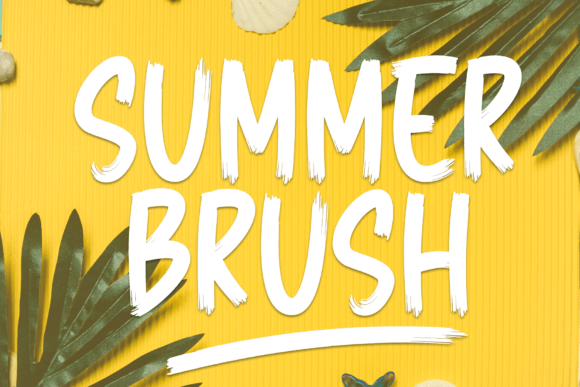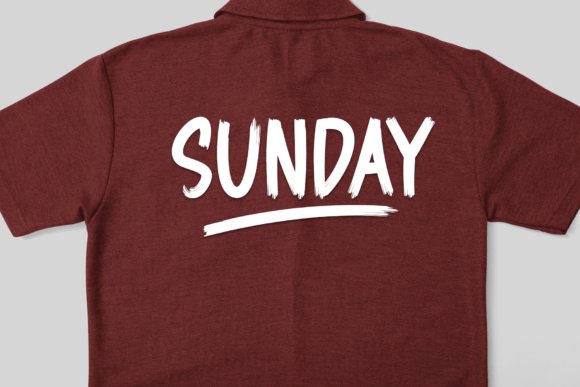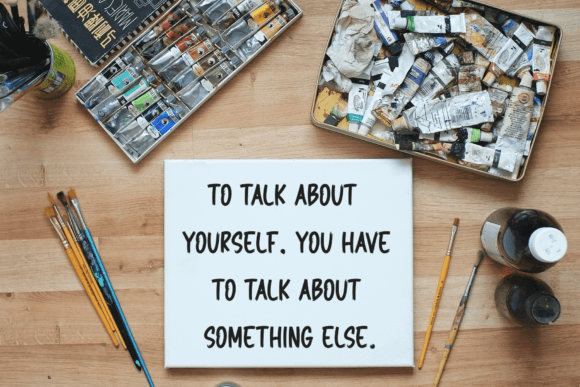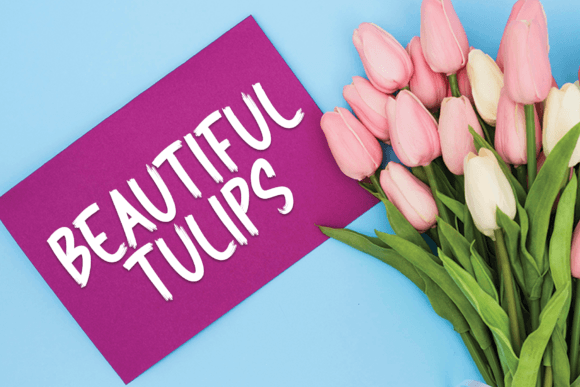
Summer Brush Font
About the Summer Brush Font
Add a touch of class to your work with the Summer Brush Font, a truly exceptional typeface. Summer Brush is a stylish and incredibly elegant script font. It looks stunning on wedding invitations, thank you cards, quotes, greeting cards, logos, business cards and every other design which needs a handwritten touch.
Summer Brush Font Usage Examples
Summer Brush Font Example